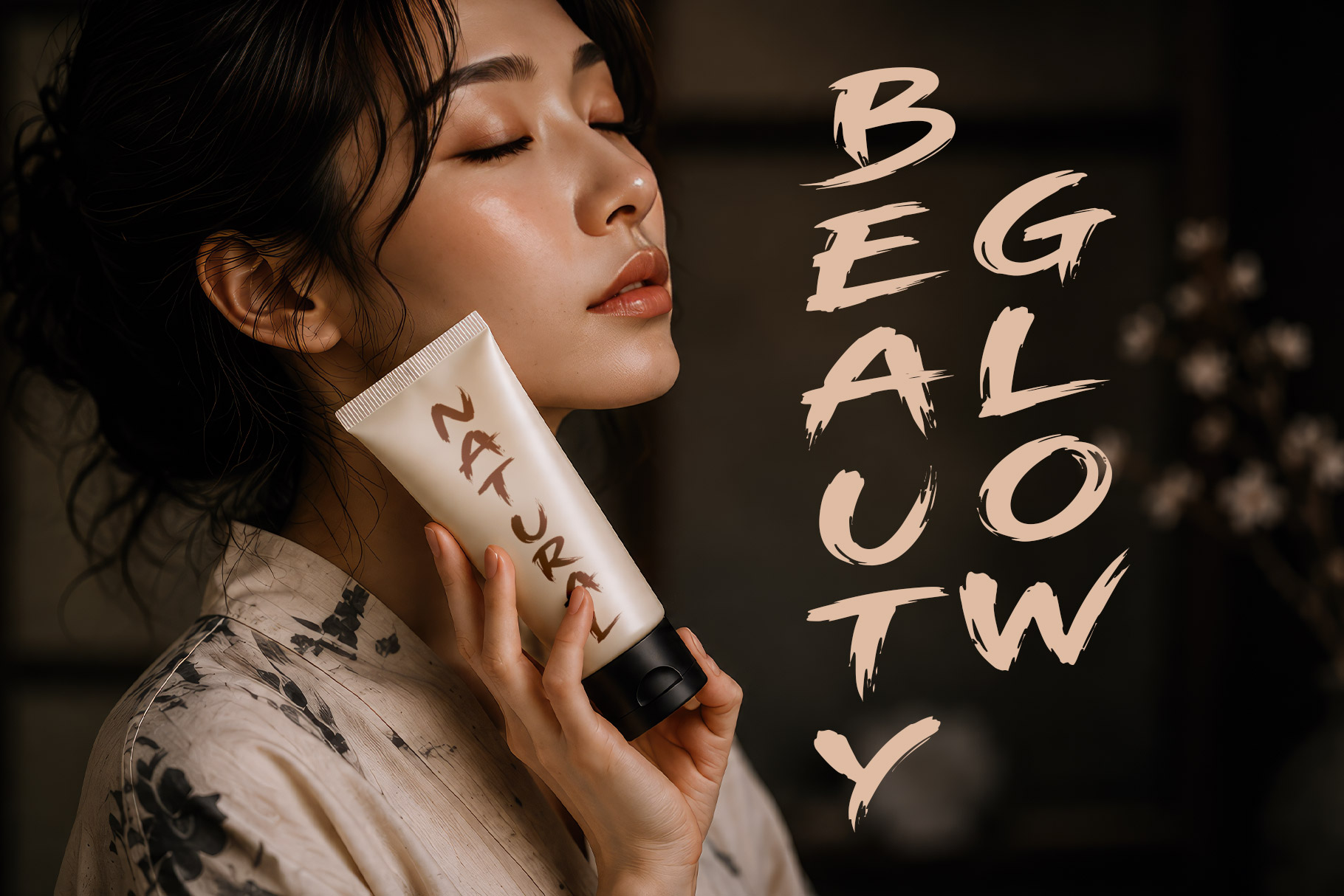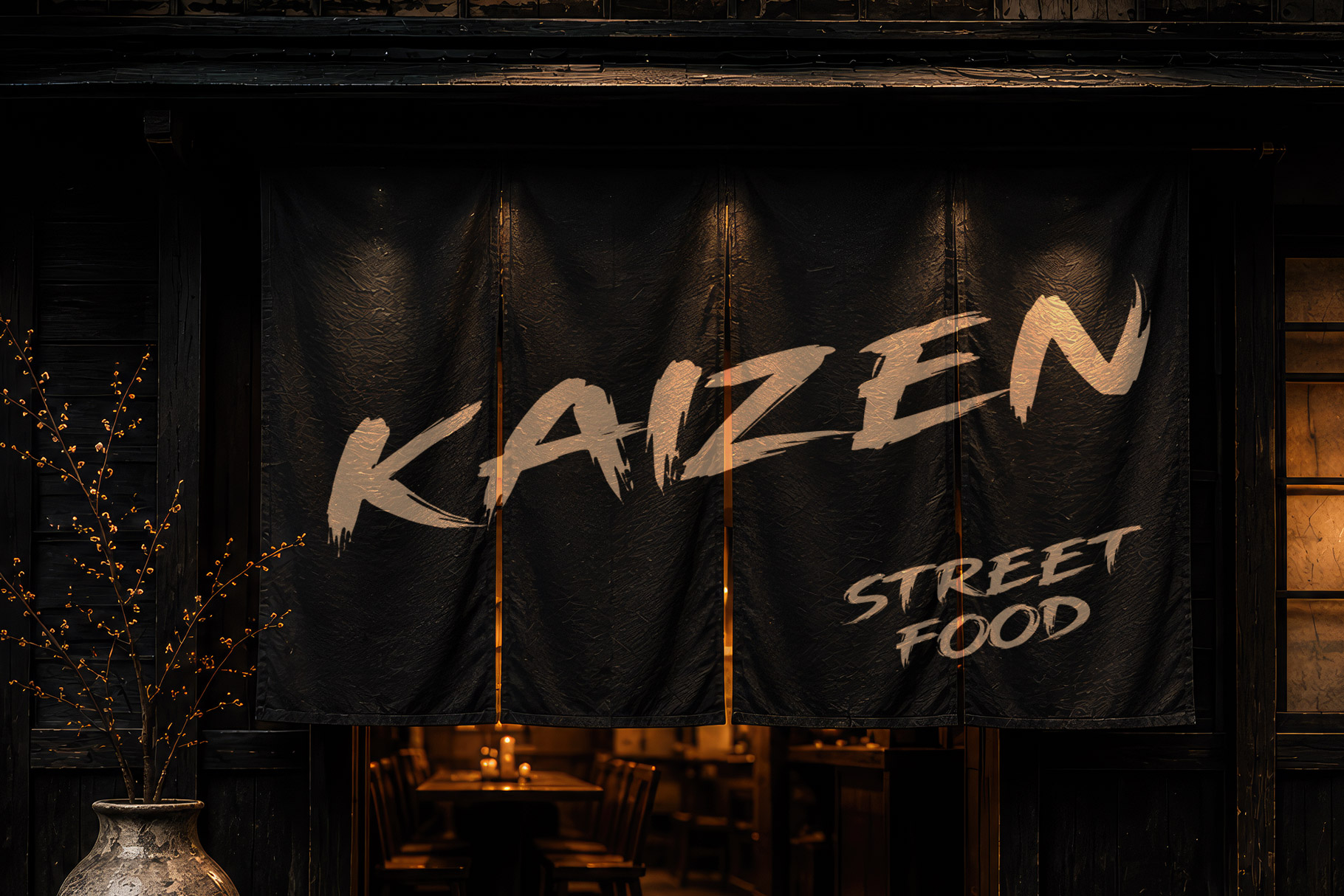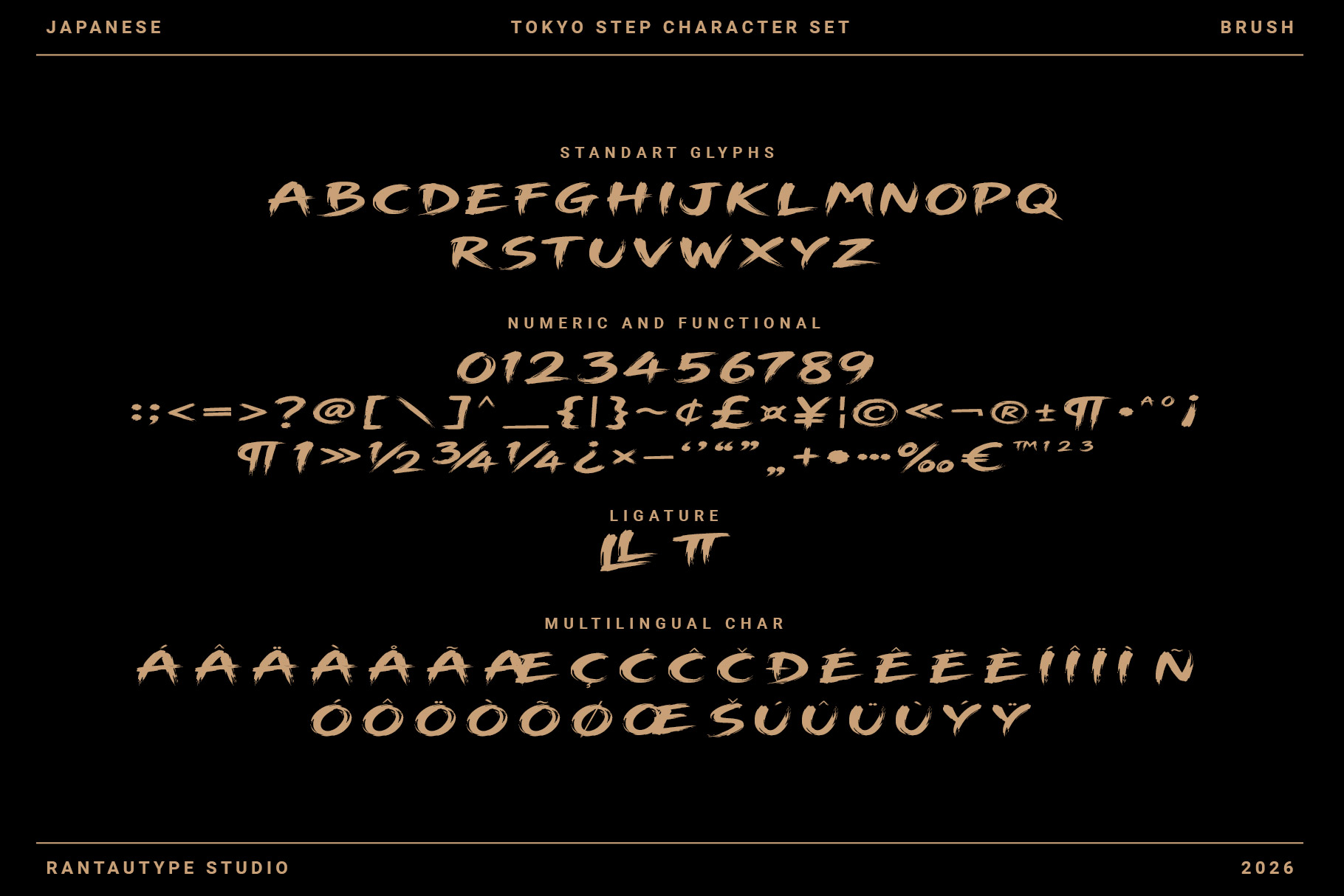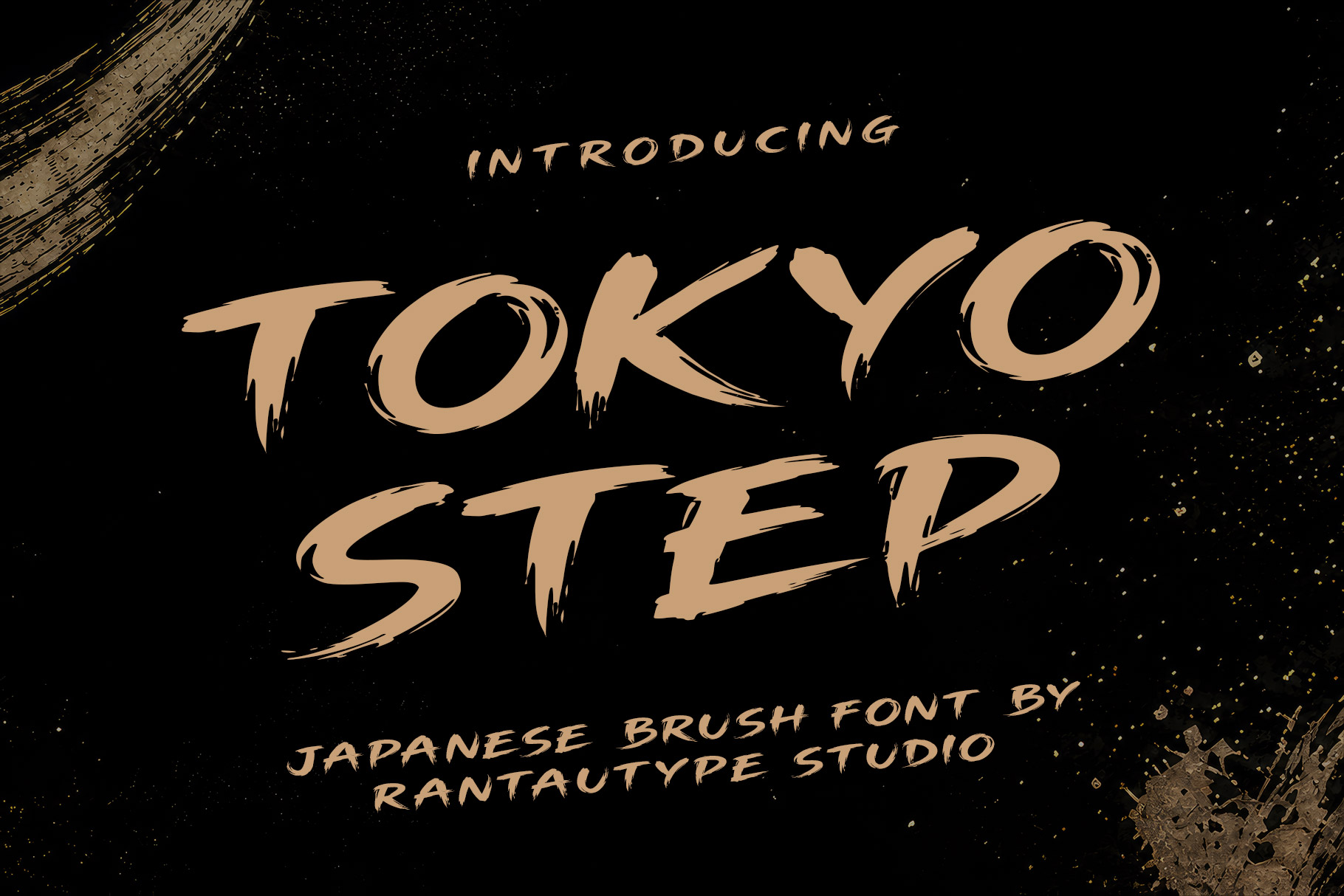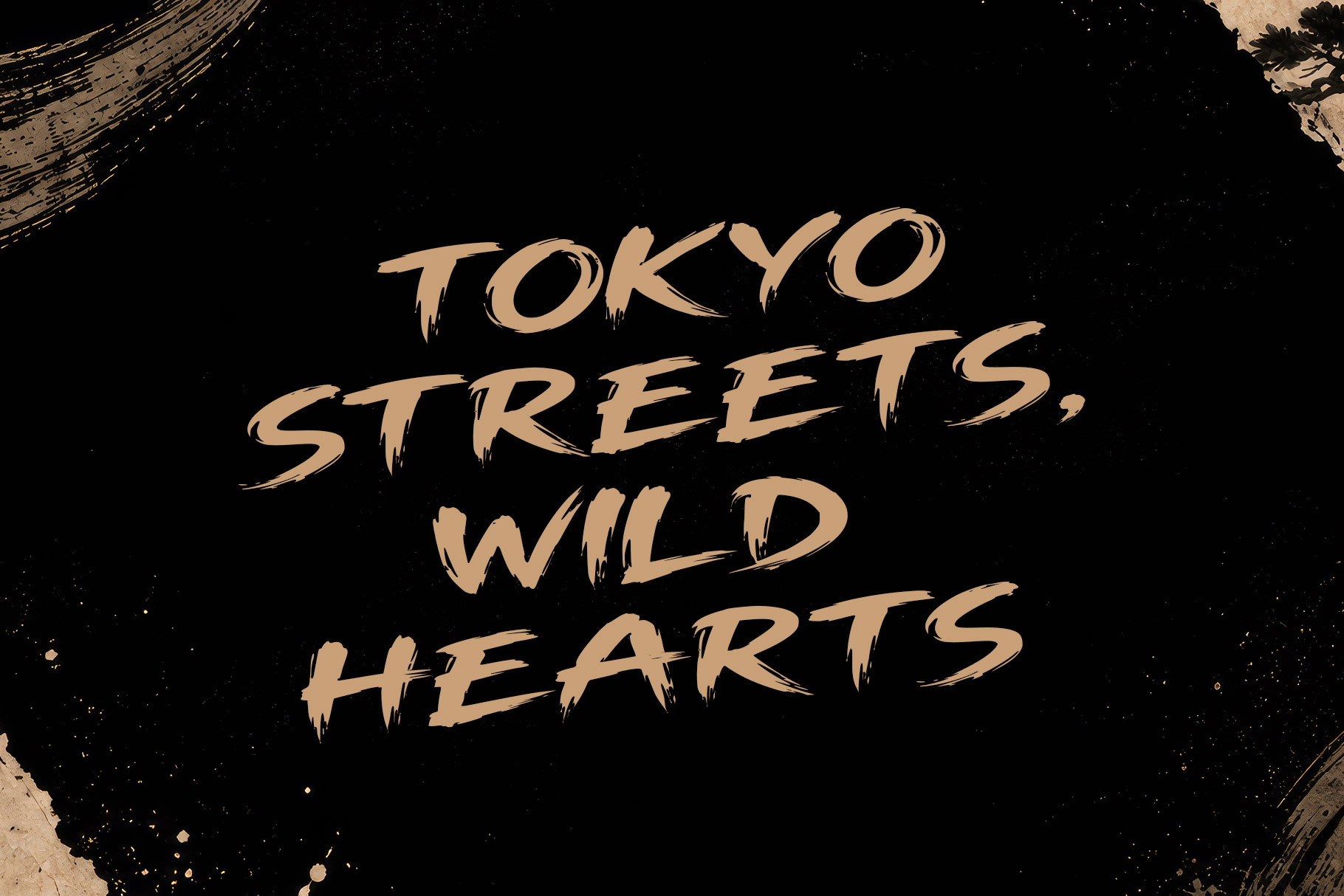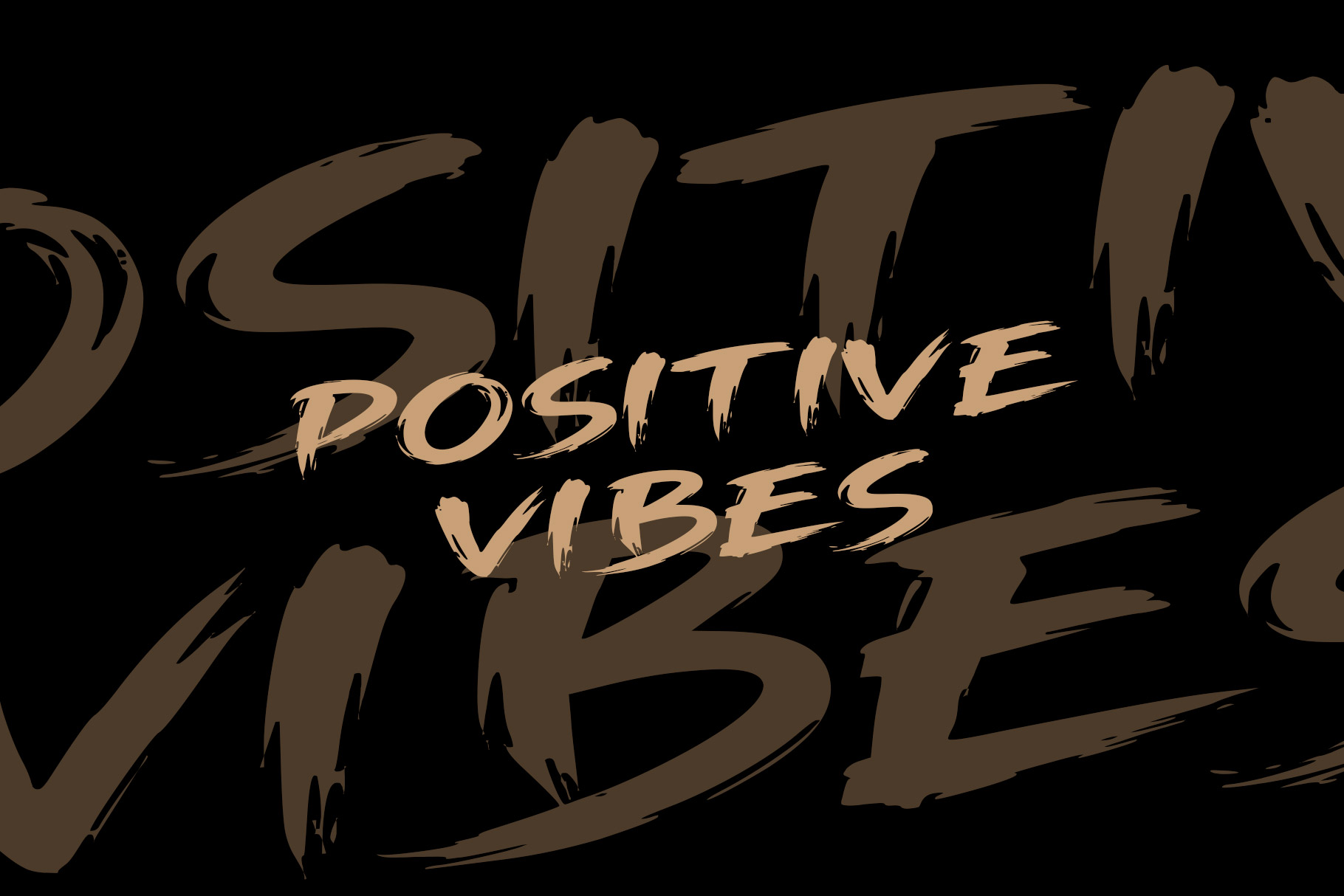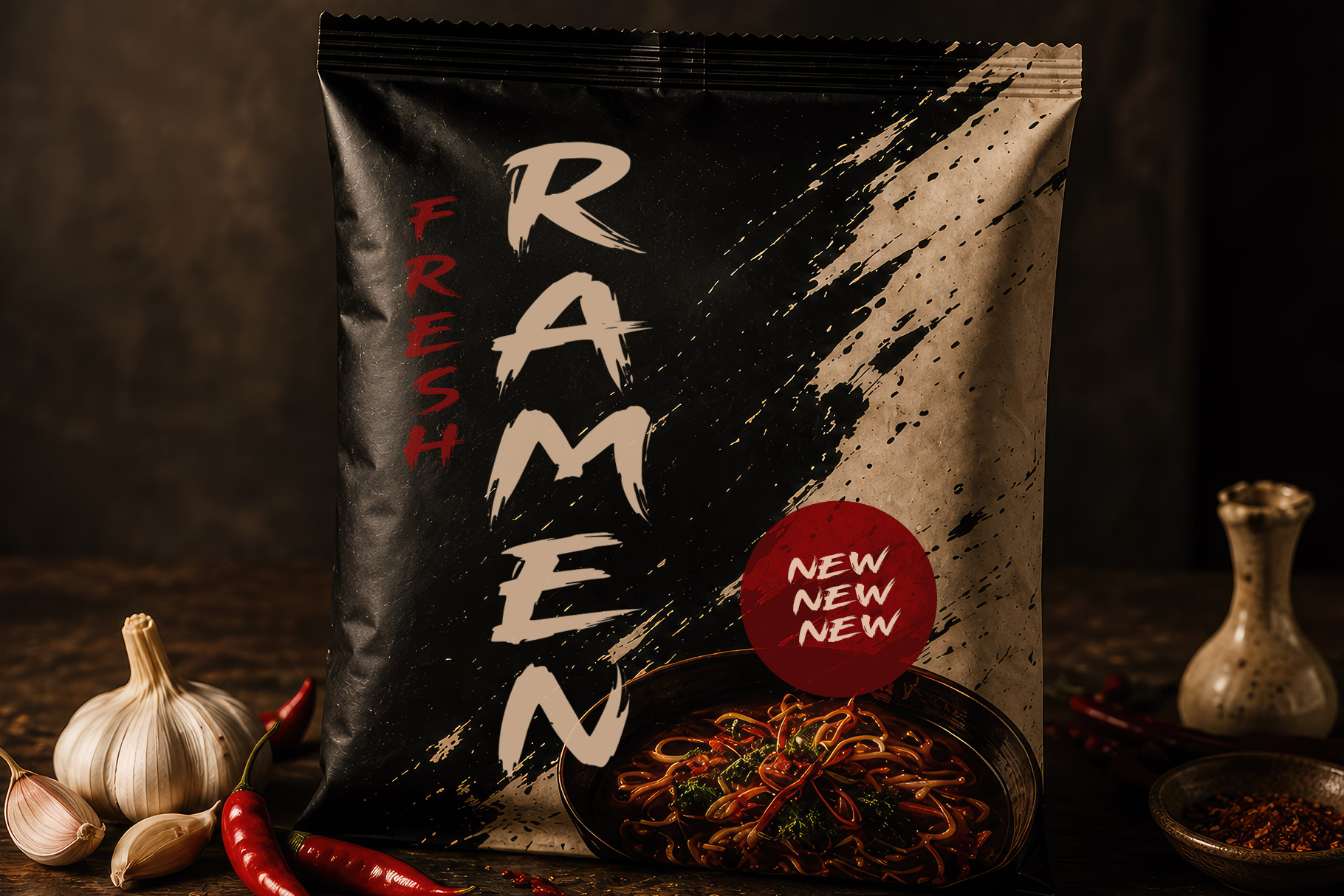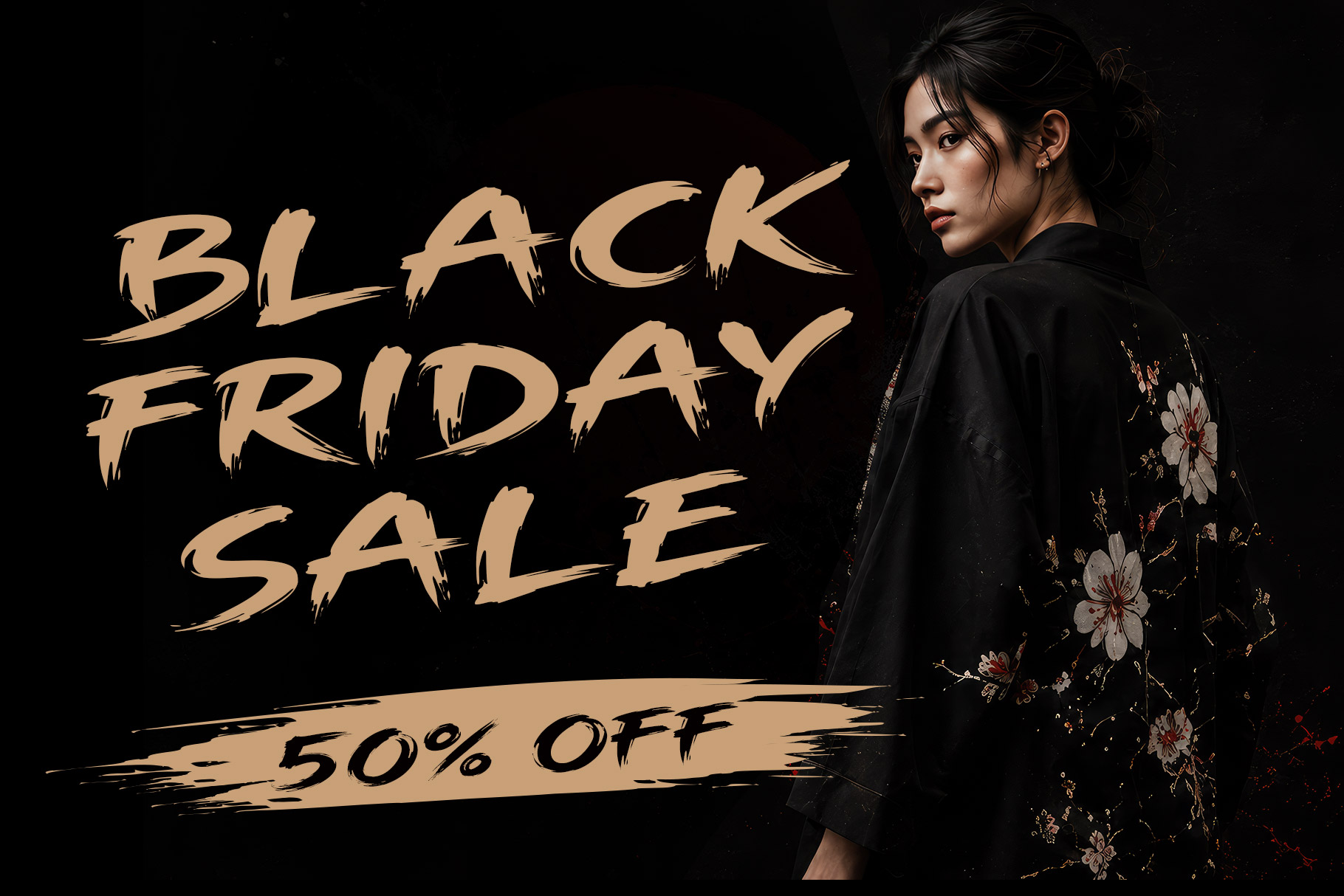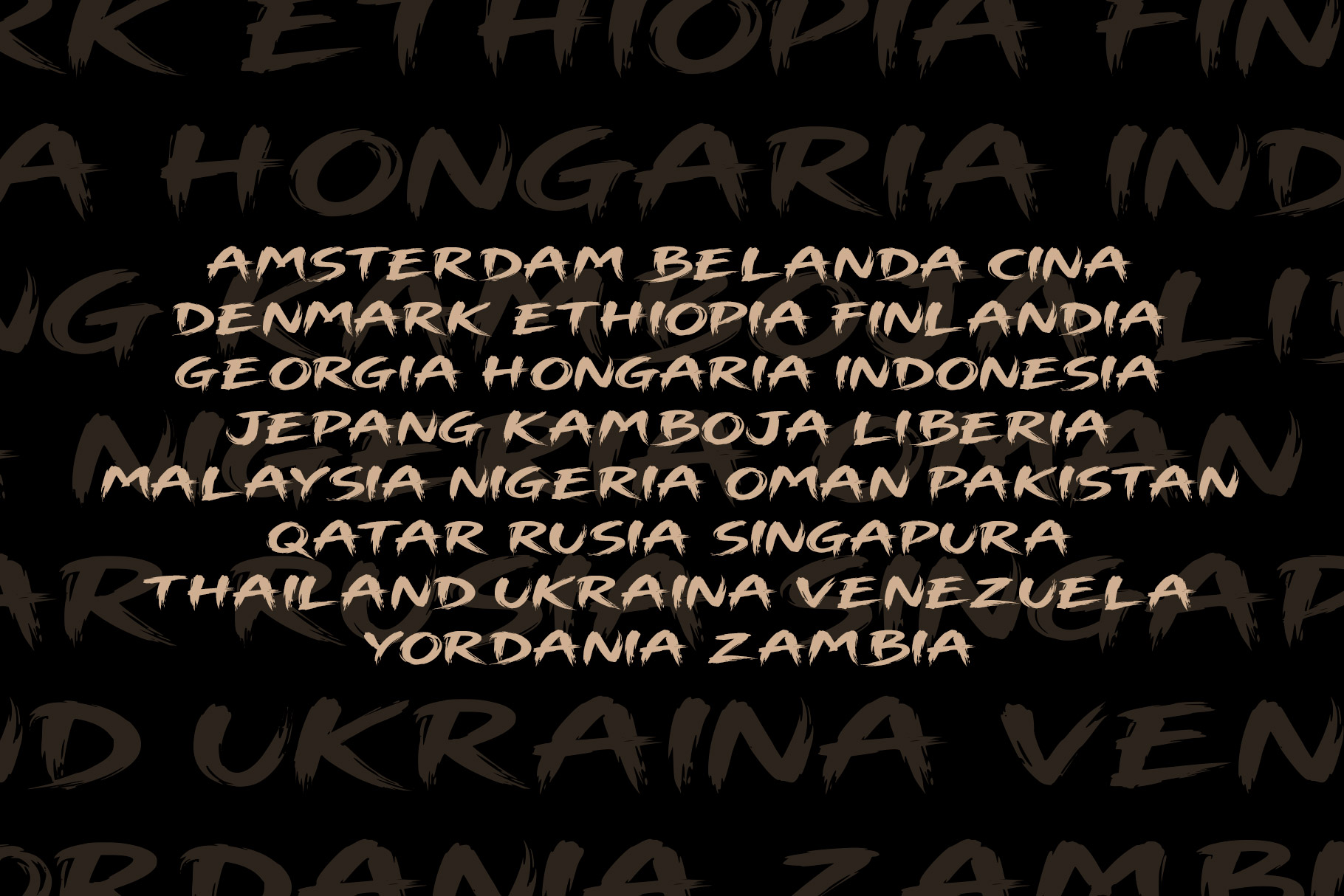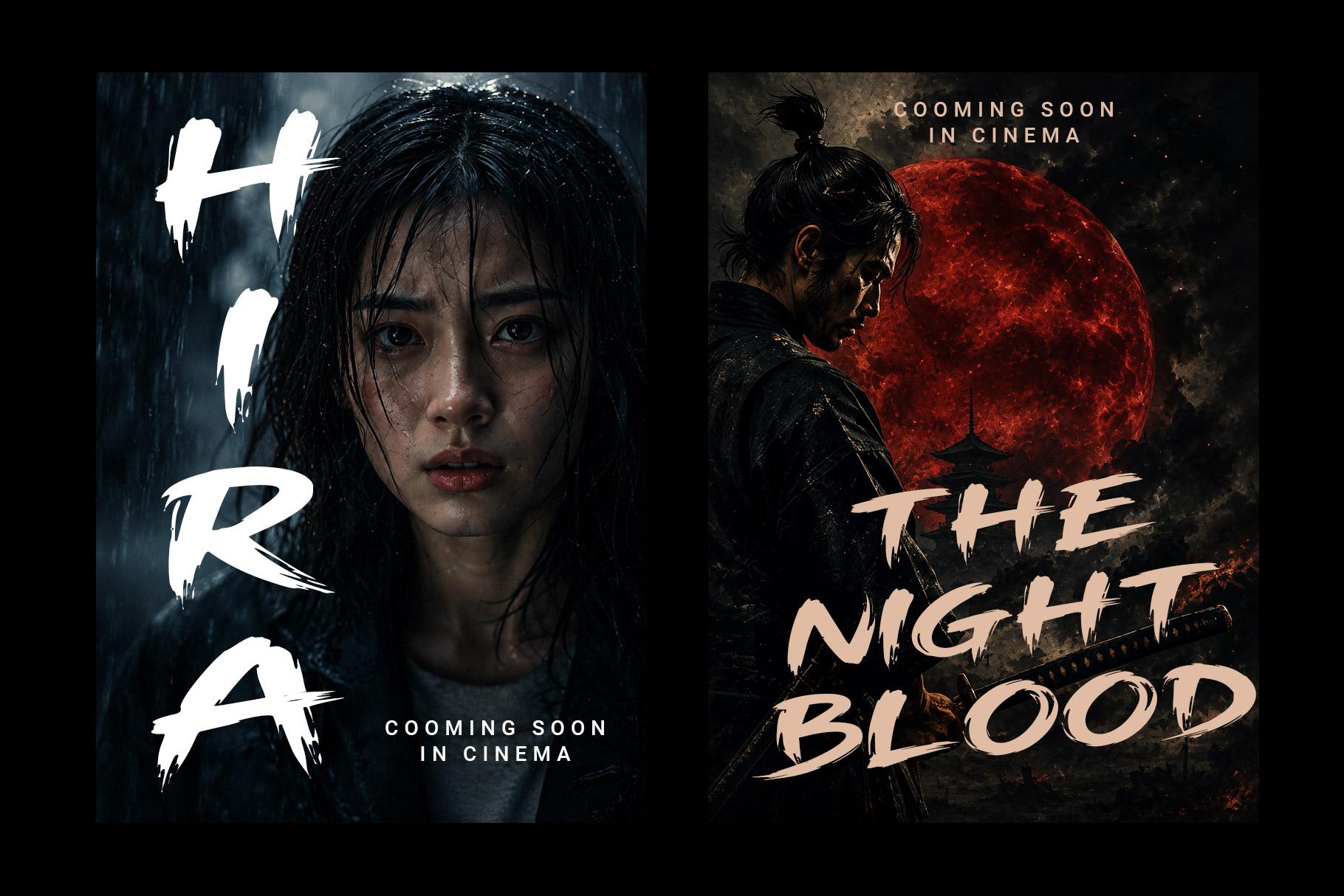
Tokyo Step is Brush font inspired by the expressive beauty of Japanese brush handlettering, Tokyo step captures a perfect balance between raw energy, artistic movement, and contemporary style. Each character is shaped with dynamic strokes, natural imperfections, tapered edges, and textured brush details that create an authentic hand-painted appearance.
Tokyo Step is a perfectly choice for any creative endeavor, creating, modern, lifestyle design such as logotype, title, cover, branding, invitations, display and magazine, social media posts, advertisements, printed quotes, product packaging, corporate brand, product designs, labels, photography, watermarks, special events and any other project with artistic touch.